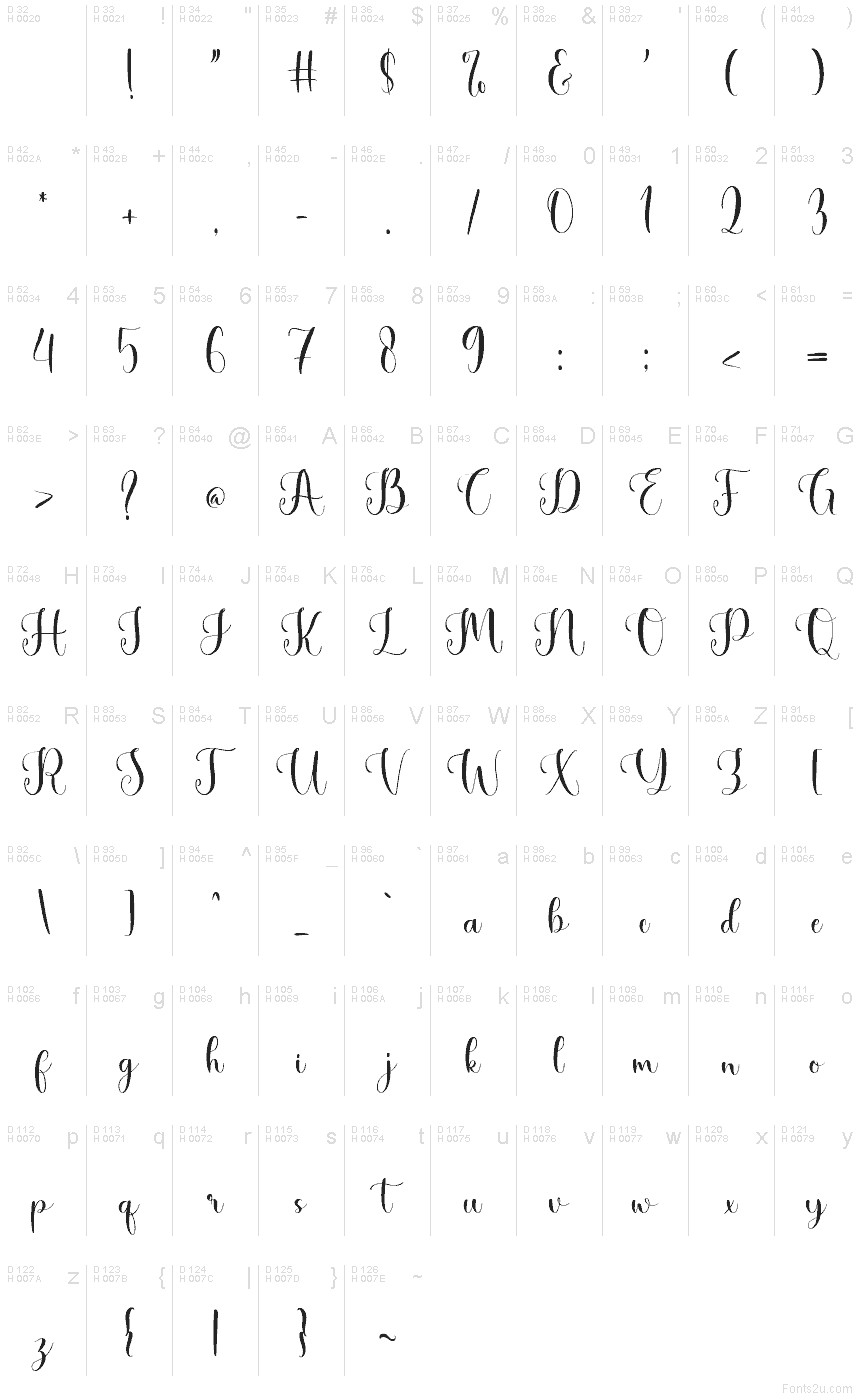
NCL Besty Sigenjo
NCL Besty Sigenjo font by Enxyclo Studio is a free calligraphy typeface that makes romance feel effortless. Flowing strokes curl into airy loops, with flourished capitals and an inky, lightly textured finish that reads as hand‑signed rather than software‑smooth. The rhythm feels lively but controlled, giving lines space to breathe without losing legibility.
Using NCL Besty Sigenjo, you can lift wedding invitations, save‑the‑dates, boutique logos, gift packaging, greeting cards, social media quotes, and event signage. The generous swashes add ceremony, while the lean skeleton keeps words from turning heavy. For balance, pair this free font with a simple geometric sans at smaller sizes and let the script take the headline.